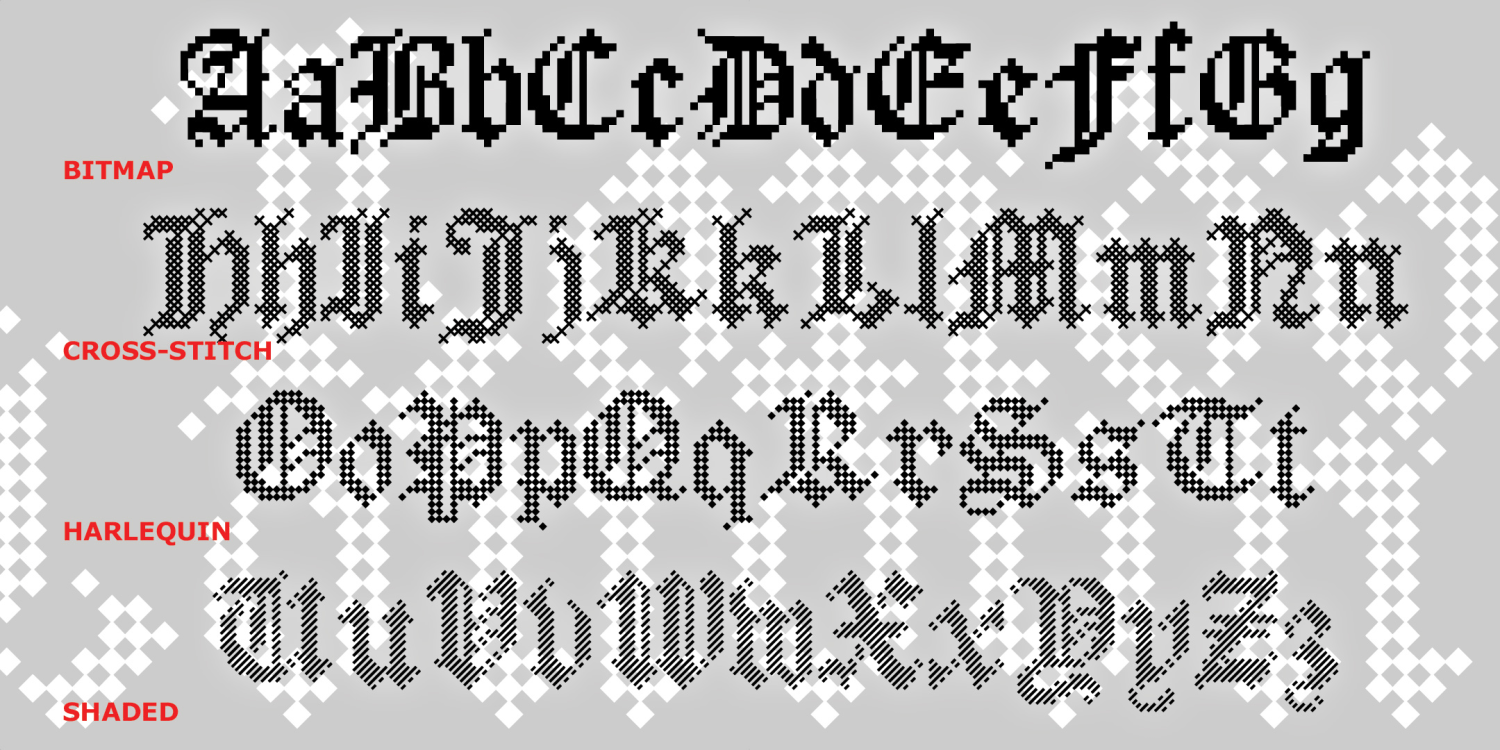
London
About London
The London family was inspired by the Apple classic font, London, a bitmap-style "Olde English" designed by Susan Kare in the early 1980s. London is now all but forgotten, one of the last of the beloved city-named bitmap fonts to be remade as…